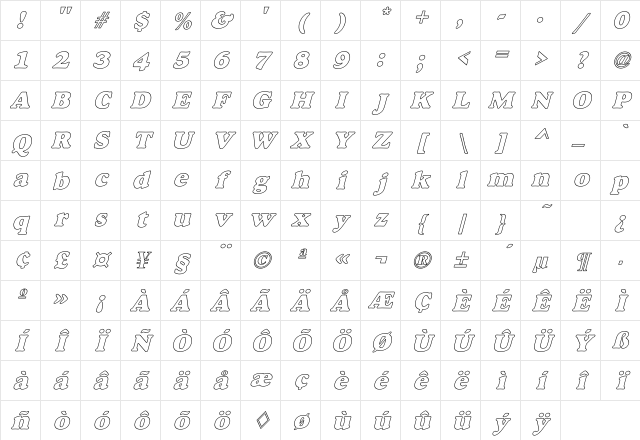
Alexuss Heavy Holl_I Italic
Design Context for Alexuss Heavy Holl_I
Alexuss Heavy Holl_I is a composed and adaptable typeface that performs quietly and consistently across a wide range of design contexts. The slanted form adds forward momentum and visual energy.
Pro Tip: Use Alexuss Heavy Holl_I for emphasis, pull quotes, and subheadings where its slanted energy can add rhythm to the layout.